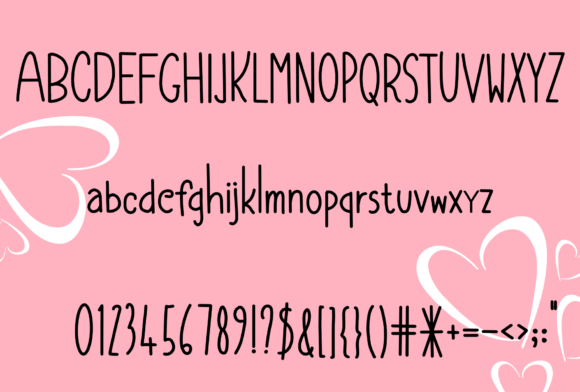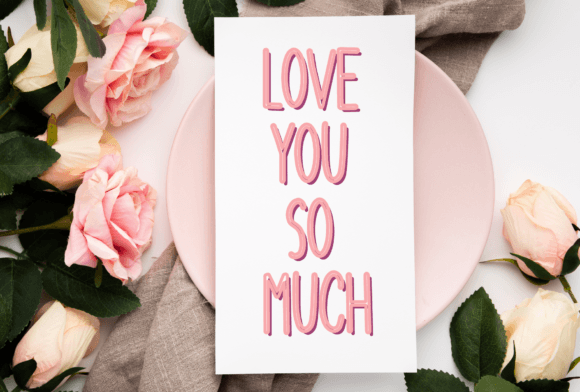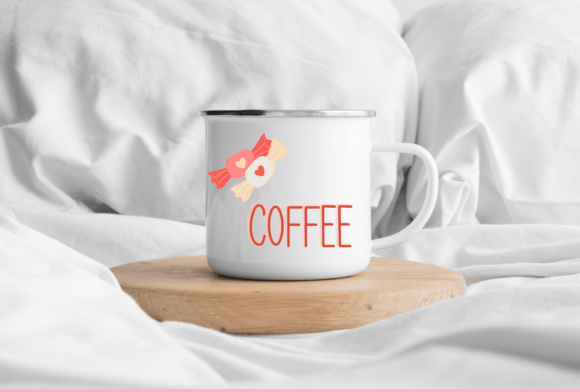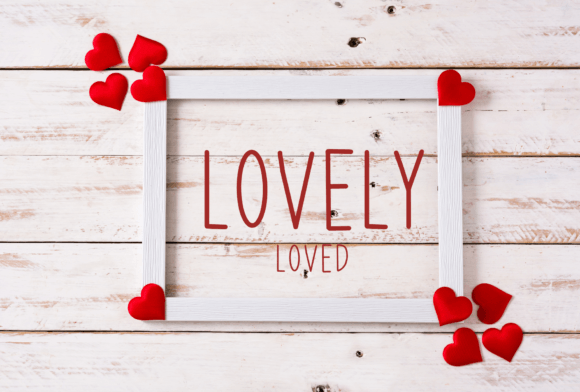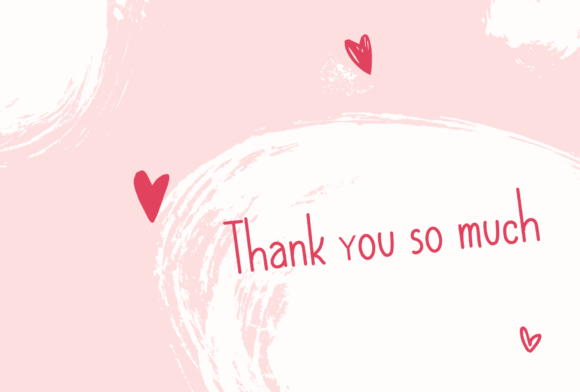
Dinamica Font
Add Cute Simplicity with Dinamica Font
The Dinamica font is a super cute and simple handwritten script designed to add charm and clarity to educational and creative projects. Perfect for teaching materials, presentations, advertising, illustrations, and various other applications, Dinamica brings a friendly and approachable style to your designs.
Perfect for Educational and Creative Uses
The Dinamica font works wonderfully in educational content such as lesson plans, digital presentations, classroom posters, and teaching aids. It also shines in advertising campaigns, illustrated books, and social media graphics, providing a warm and inviting feel.
A Handwritten Script with Simple and Clear Style
Each character in the Dinamica font is crafted to offer smooth, legible strokes that mimic natural handwriting. The font balances simplicity with personality, making it ideal for both headlines and body text where clarity is essential.
Despite its simple style, the Dinamica font maintains excellent readability across different sizes. Whether used for large titles or smaller text elements, it offers a balance of charm and clarity, making it a versatile choice for many creative and educational projects.
Make Your Designs Shine with Friendly Simplicity